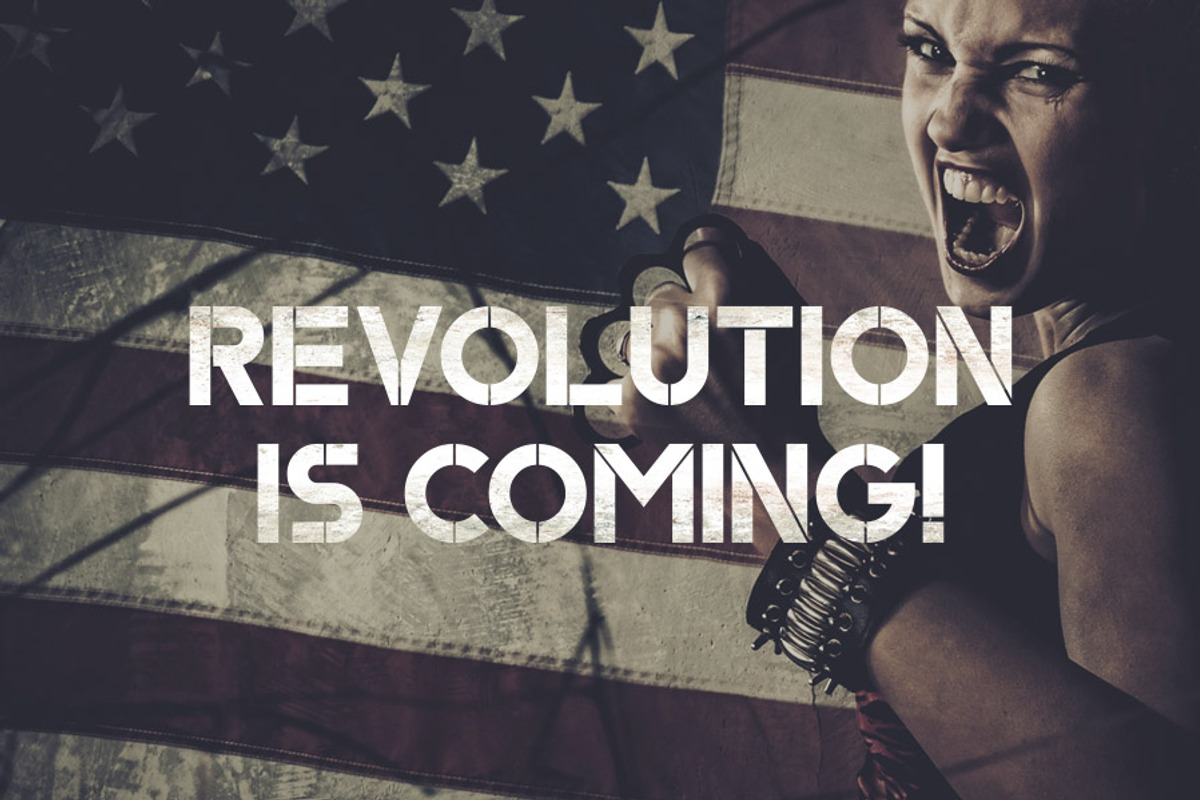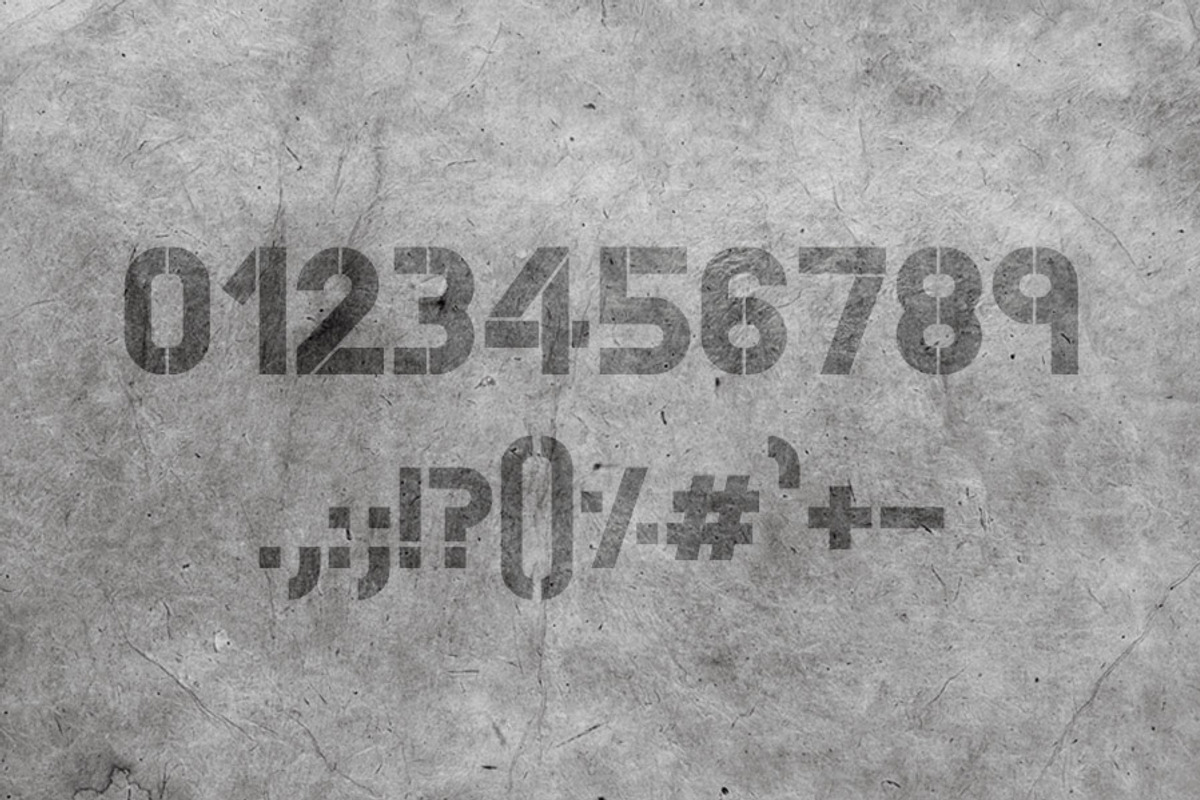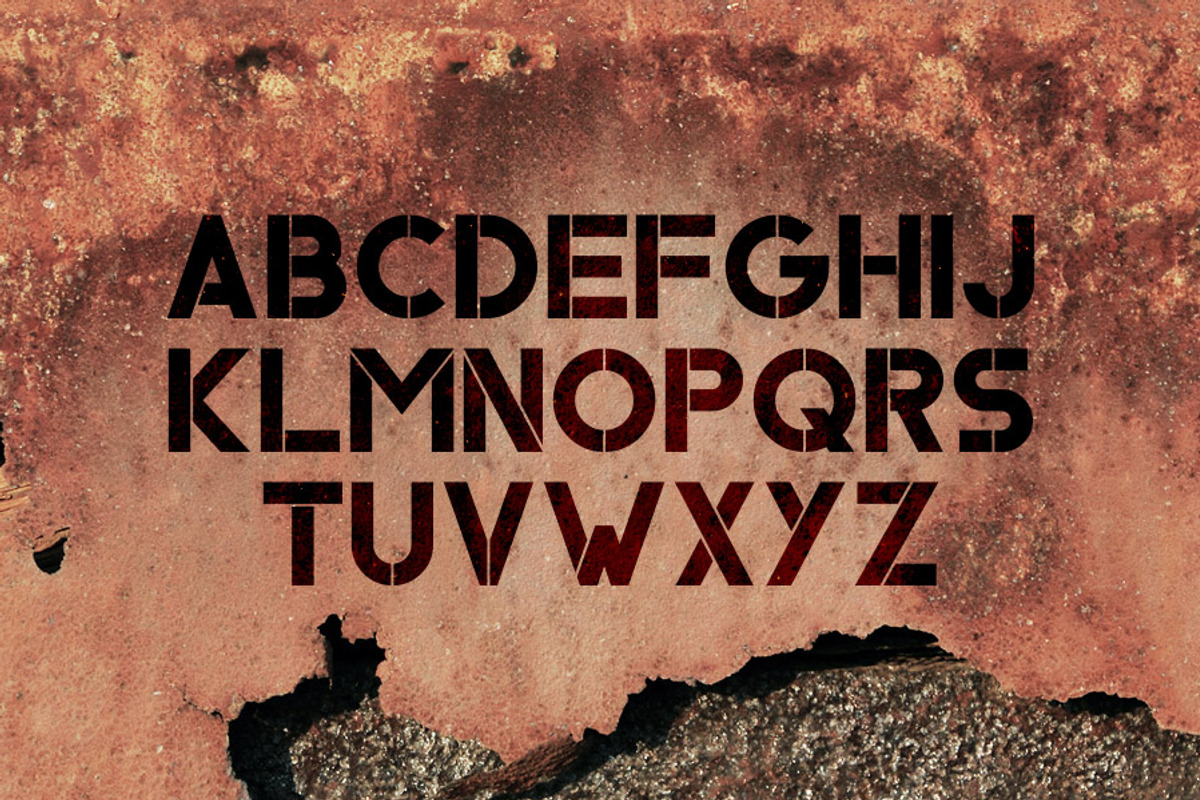
Ember Typeface
Ember Typeface by Tugcu Design Co. is a font selected for branding, posters, packaging, typography.
- It includes English uppercase letters, numbers and punctuation.
Why Ember Typeface is worth a look
Ember Typeface by Tugcu Design Co. fits naturally into Branding, posters, packaging, typography.